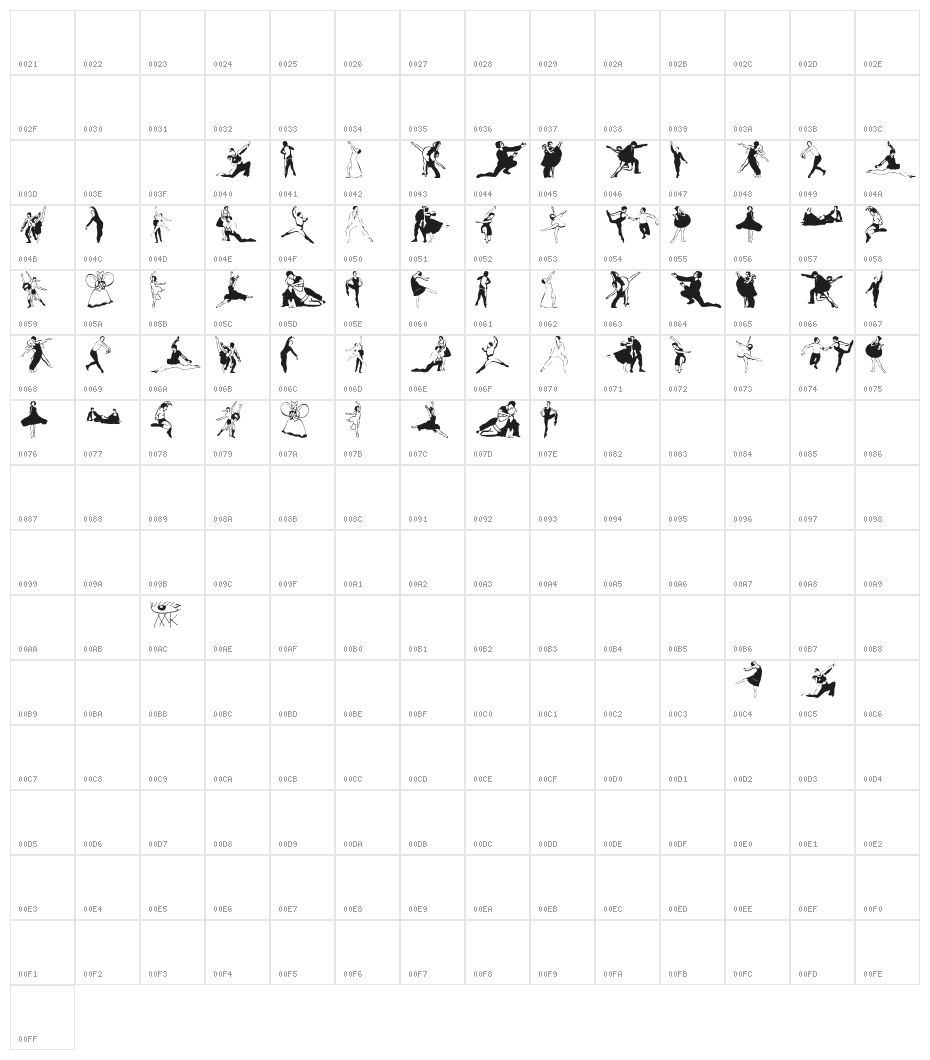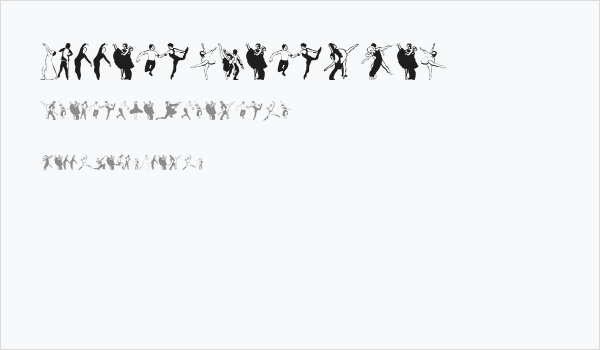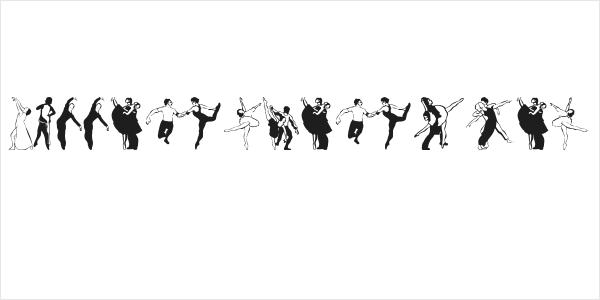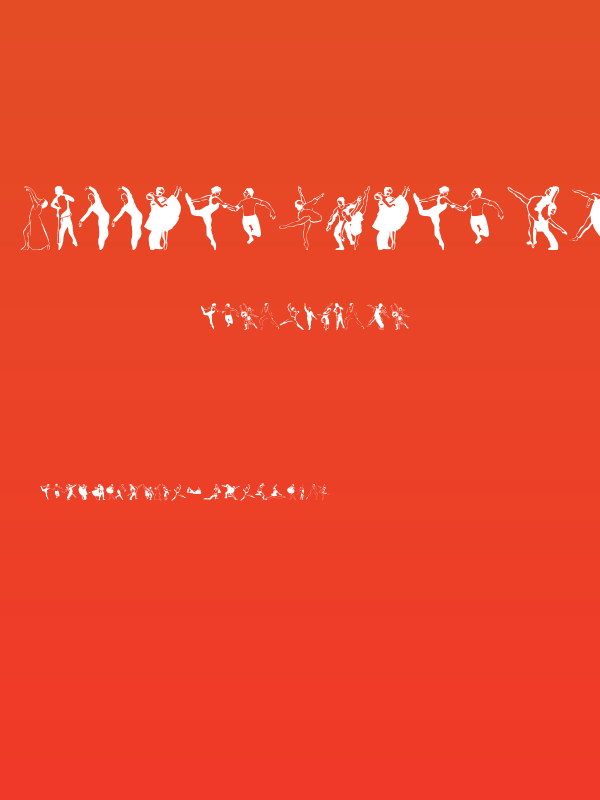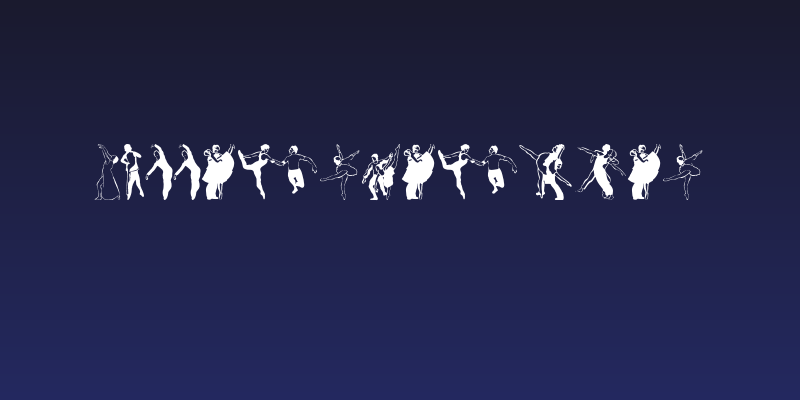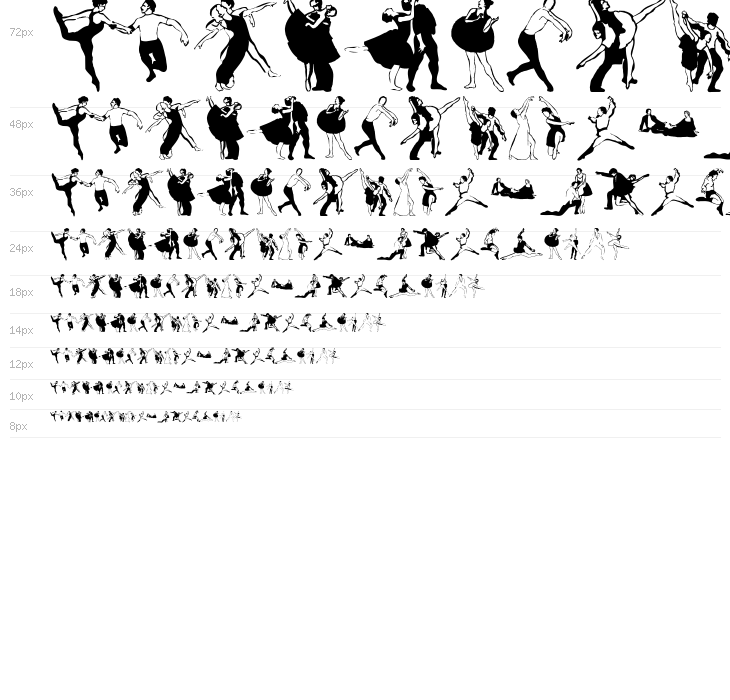
BalletSketches Font
BalletSketches Description
A decorative font composed of expressive, sketch-style illustrations of ballet dancers in various poses, each character represented by a unique dance duo or solo figure, blending both filled and outlined forms for dynamic visual interest.
| Overall Style | Decorative, Artistic |
| Use Case | Logos, Headlines, Posters, Invitations |
| Proposed Projects | Dance studio branding, event posters, invitations, themed merchandise, artistic headlines. |